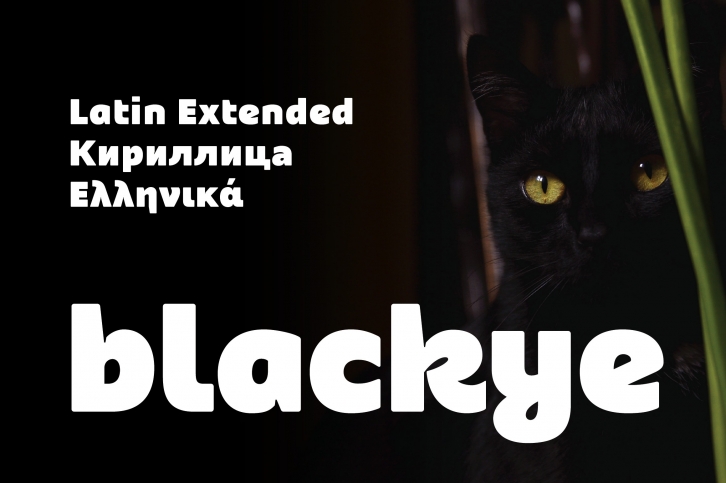
Blackye is a trendy and unique font with an authentic style. It was designed by Genilson Santos and it's a great choice for creative people who need such a font. It was released on October 2, 2017 and the file size is 12.85 MB. Blackye will add an organic vibe to any design idea!